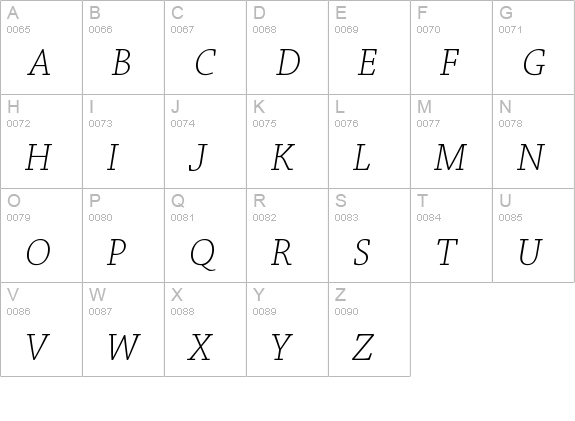
Chaparral Pro Light Italic Subhead is a refined, elegant, italic variant in the Chaparral typeface family \xE2\x80\x94 well suited to elegant body text, refined sub-headings, and luxury branding.
Chaparral Pro Light Italic Subhead font is a sophisticated and elegant typeface perfect for adding a touch of style to your designs. Its sleek and modern appearance makes it ideal for use in subheadings, titles, and other important text elements. The gentle slant of the italic style adds a subtle emphasis to the text, making it stand out while maintaining a sense of refinement. The best part about Chaparral Pro Light Italic Subhead font is that it is available for free download at FontsMarket.com. This means that you can enhance your projects with this high-quality font without any cost involved. Whether you're working on a professional presentation, a creative project, or anything in between, this font is a versatile choice that will elevate your work to the next level. Don't miss out on the opportunity to access Chaparral Pro Light Italic Subhead font for free at FontsMarket.com and take your designs to new heights with its sleek and stylish appearance.